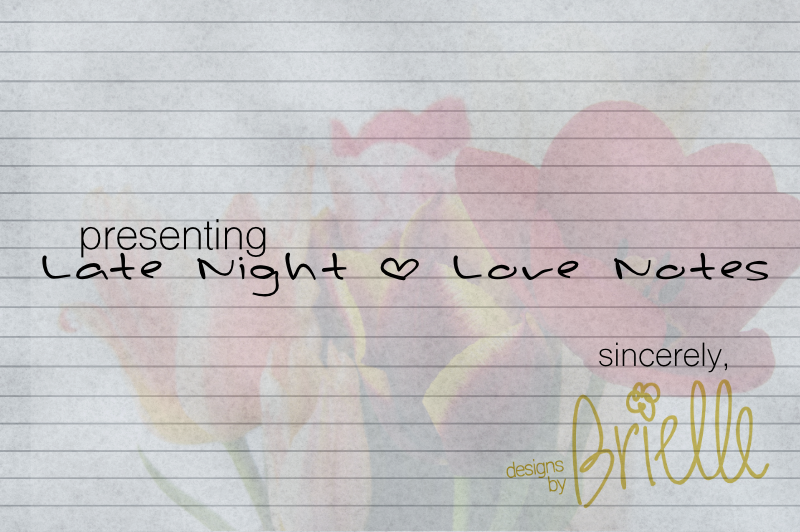
A cute and casual handwriting. Enjoy! Free for personal use. For commercial licensing, please see http://designsbybrielle.com/commercial-use-info/. |